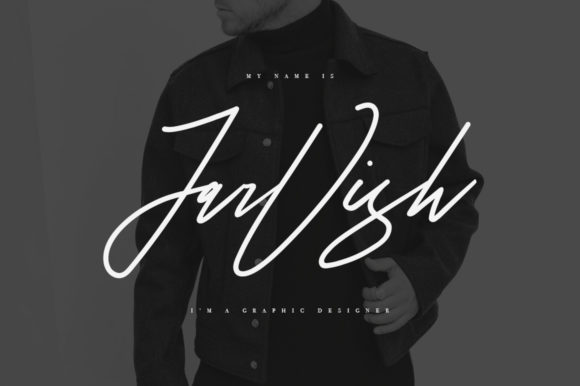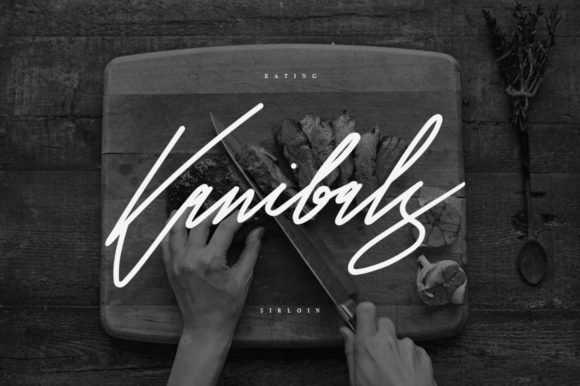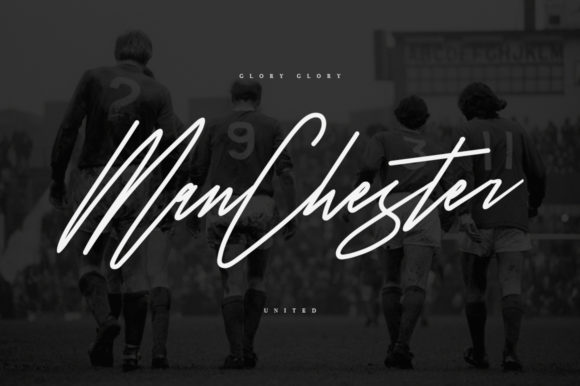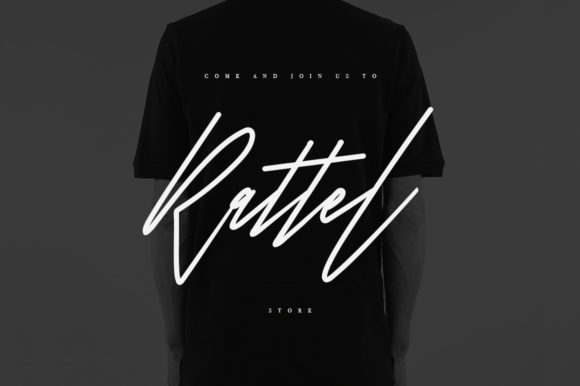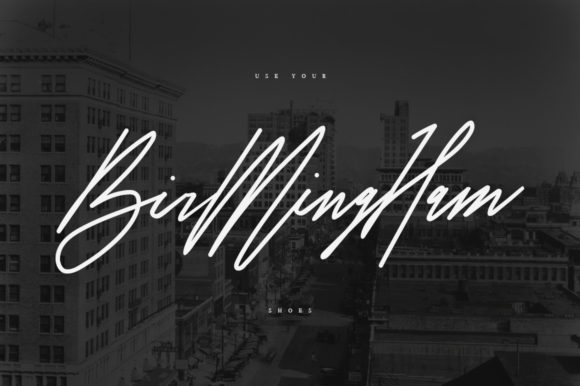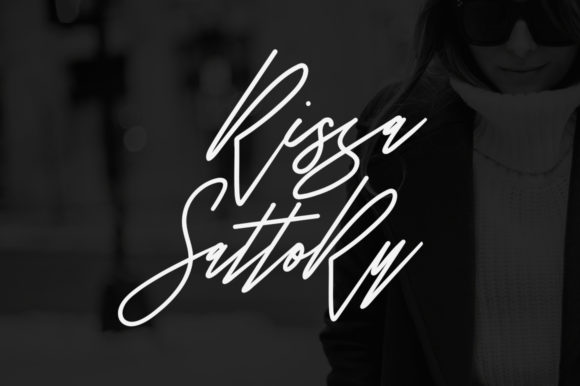
Handwritten Charm for Your Designs
Have you ever sat down with a pen and paper, trying to capture the perfect handwritten phrase to convey your emotions? For designers, creating a unique and personal touch is often the key to making a lasting impression. Whether it’s a wedding invitation, a birthday card, or a logo for a new business, the right font can elevate your design from ordinary to extraordinary.
Enter the Augustia Font, a stylish and elegant script font that adds a touch of whimsy and charm to any design. With its flowing lines and delicate curves, Augustia Font is perfect for adding a handwritten feel to your projects. From greeting cards to business cards, this versatile font is sure to leave a lasting impression on your audience.
Augustia Font Key Features
- Unique Characteristics: The font features a unique blend of modern and vintage elements, making it suitable for a wide range of design projects, from contemporary to traditional themes.
Augustia Font Review
Augustia is a beautifully crafted script font, perfect for adding a touch of elegance to your designs ✨. The flowing connections between letters make it ideal for titles and headings, while its smooth curves create a soothing effect.
One of the standout features of Augustia is its excellent legibility, even at smaller font sizes. This makes it perfect for body text, as long as you’re not using it for a large block of text. Additionally, the font has a wide range of weights and styles to choose from, making it versatile for various design projects ✨.
- Beautifully crafted script font
- Excellent legibility
- Wide range of weights and styles
- Perfect for titles, headings, and body text
- May not be suitable for large blocks of text
- Can be difficult to read at very small font sizes
- Some characters may not be available in all weights and styles
Overall, Augustia is a great choice for designers looking to add a touch of sophistication to their work. While it has some limitations, its beauty and versatility make it a solid addition to any font collection.
Augustia Font is perfect for:
- Creating elegant and sophisticated designs.
- Adding a touch of luxury to your branding and marketing materials.
- Using as a heading font for presentations and documents.
Remember to use Augustia Font in moderation to avoid overwhelming your design.
Alternatives to Augustia Font
Playfair Display is a luxurious and elegant serif font, ideal for creating high-end branding and editorial content. It’s perfect for use in headings, titles, and any design element that requires sophistication and refinement.
Compared to Augustia Font, Playfair Display has a more ornate and refined look, making it suitable for projects that require a touch of luxury. While Augustia Font is more versatile, Playfair Display excels in creating a sense of opulence and grandeur.
Montserrat is a modern sans-serif font, designed for use in urban environments. It’s perfect for creating clean and minimalist designs, ideal for digital products, websites, and mobile apps.
Compared to Augustia Font, Montserrat has a more geometric and modern look, making it suitable for projects that require a clean and contemporary aesthetic. While Augustia Font is more versatile, Montserrat excels in creating a sense of simplicity and minimalism.